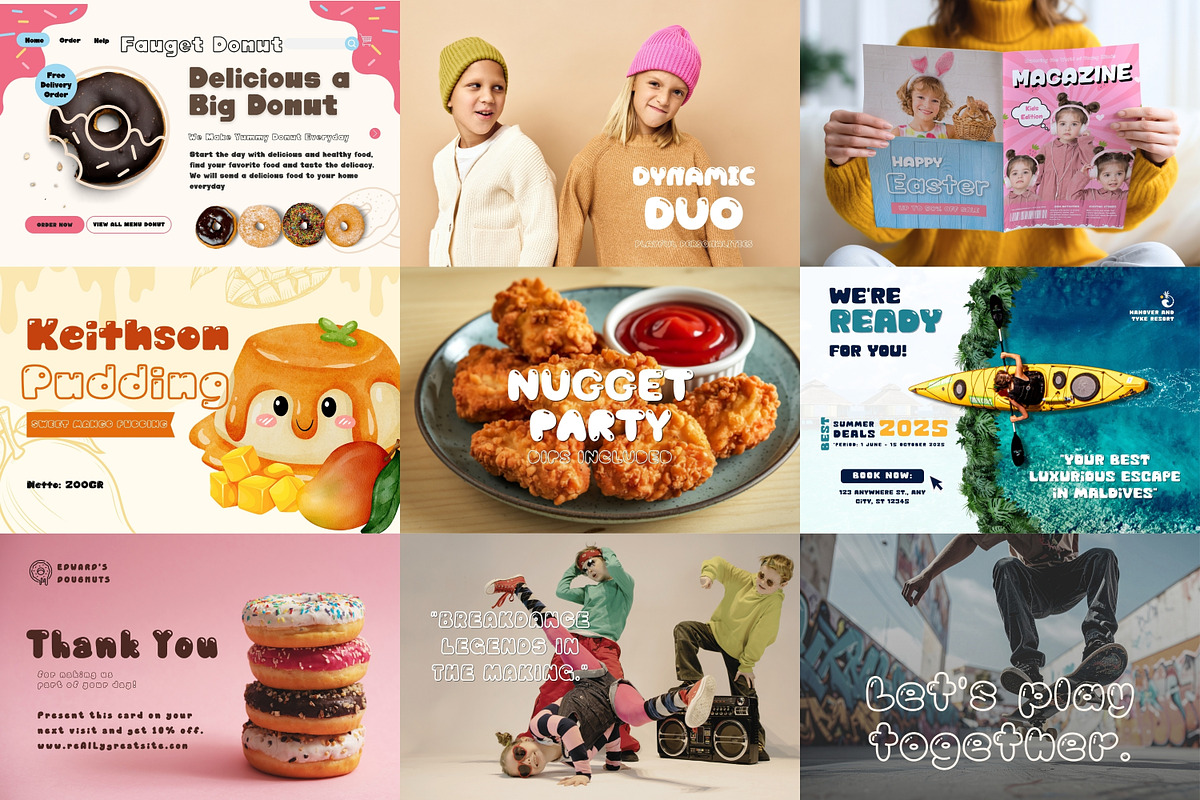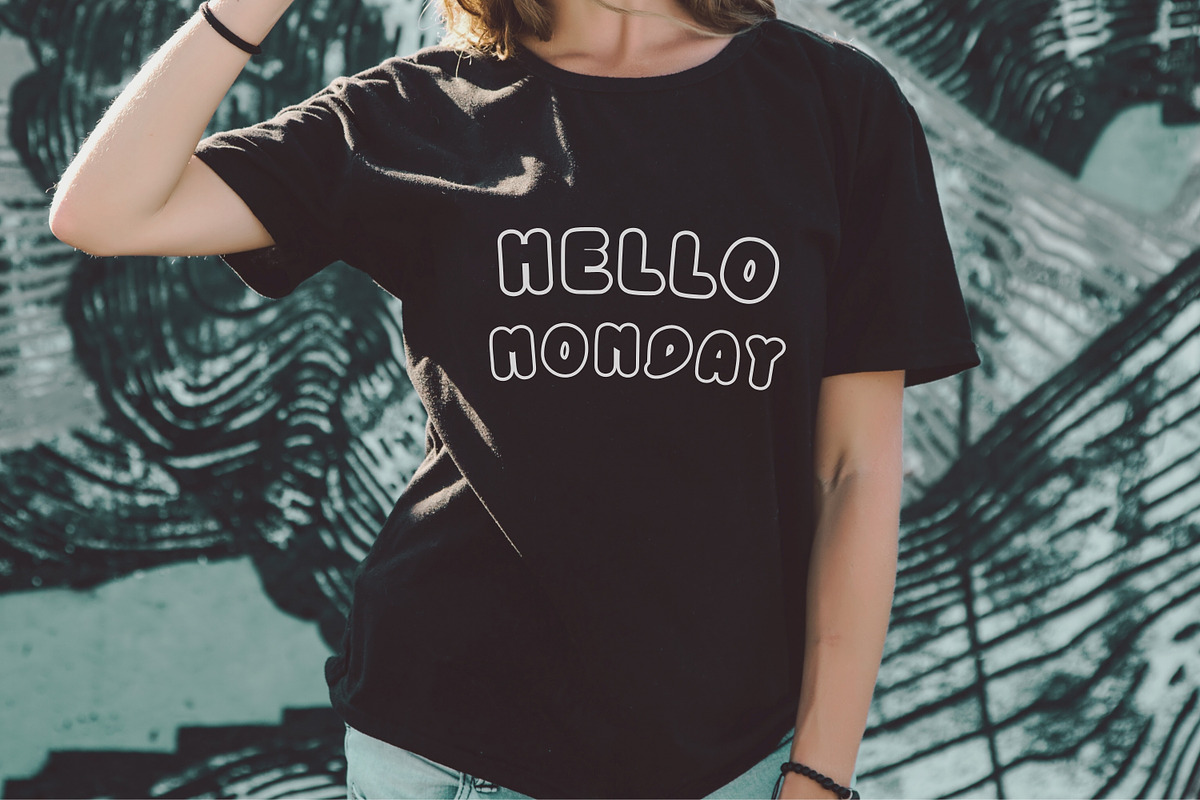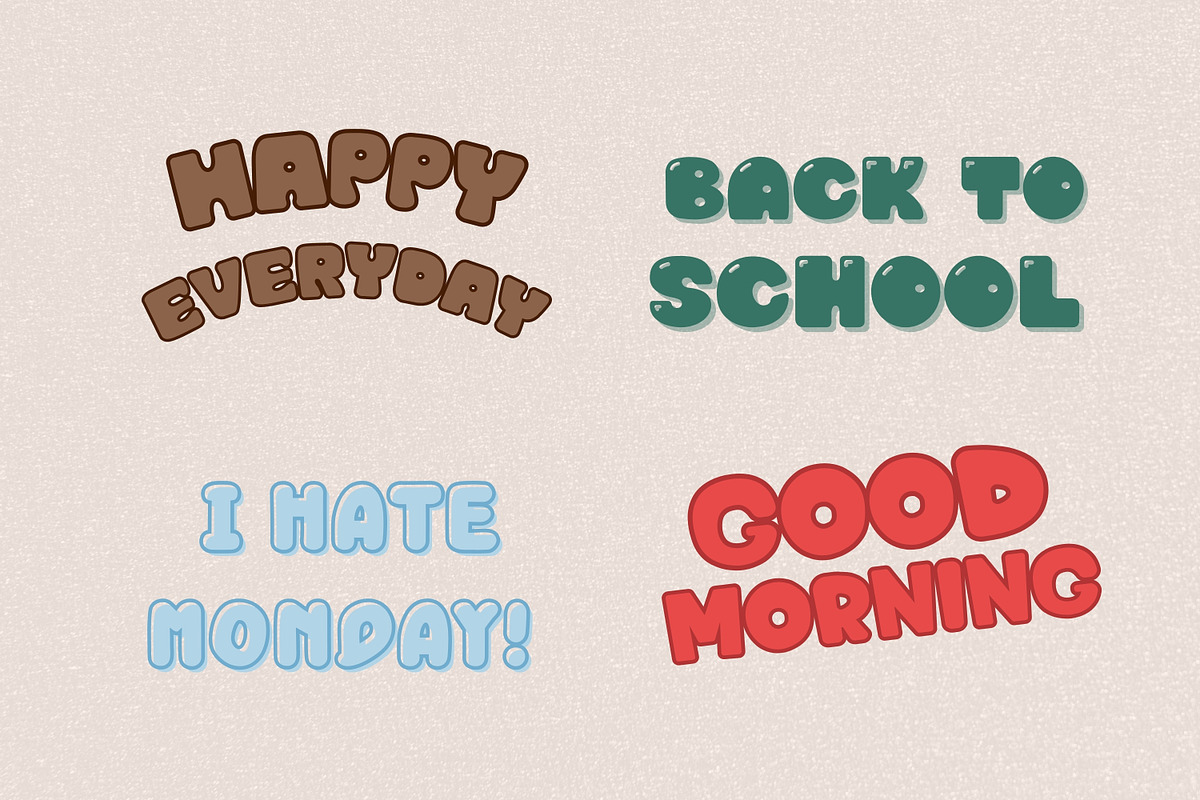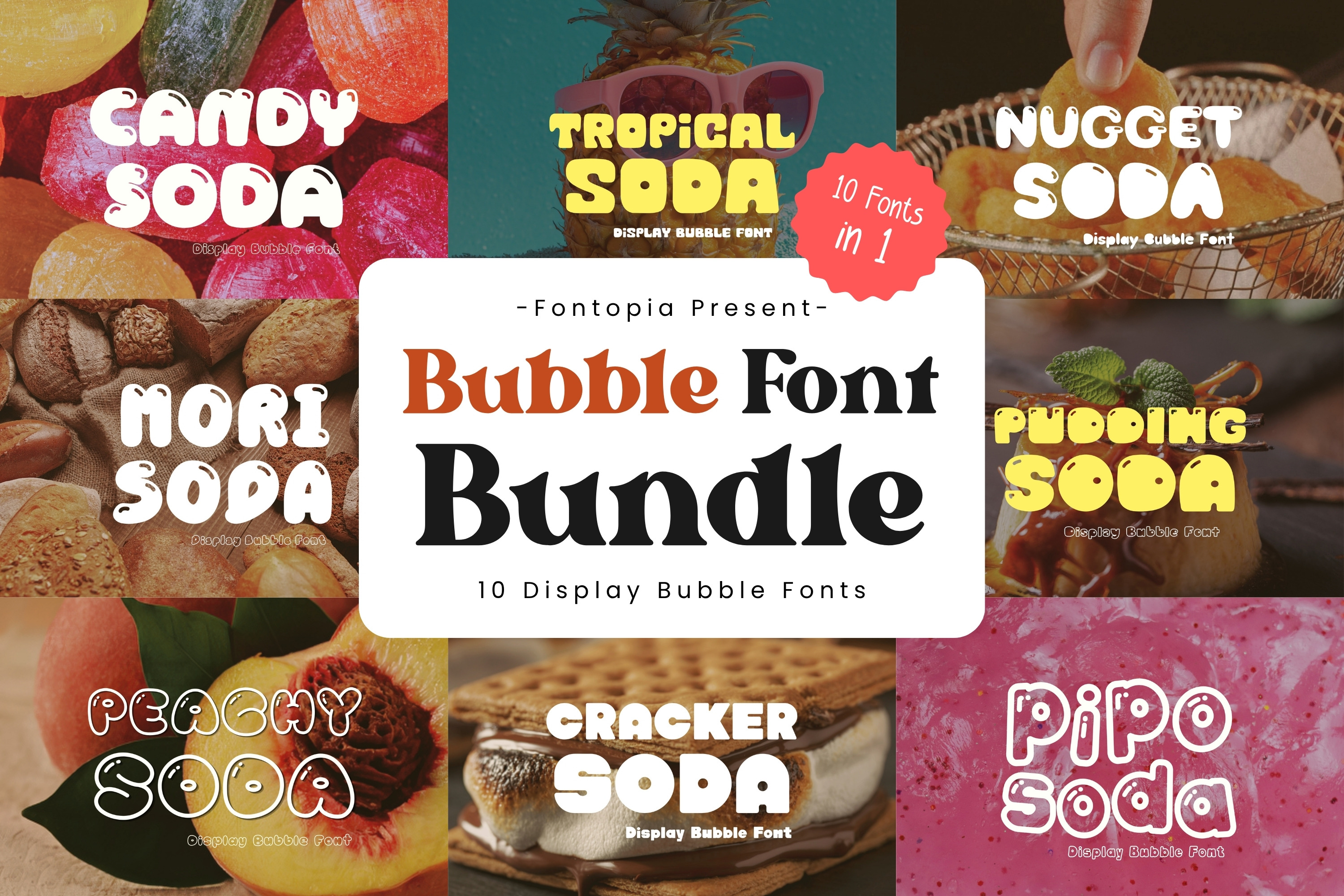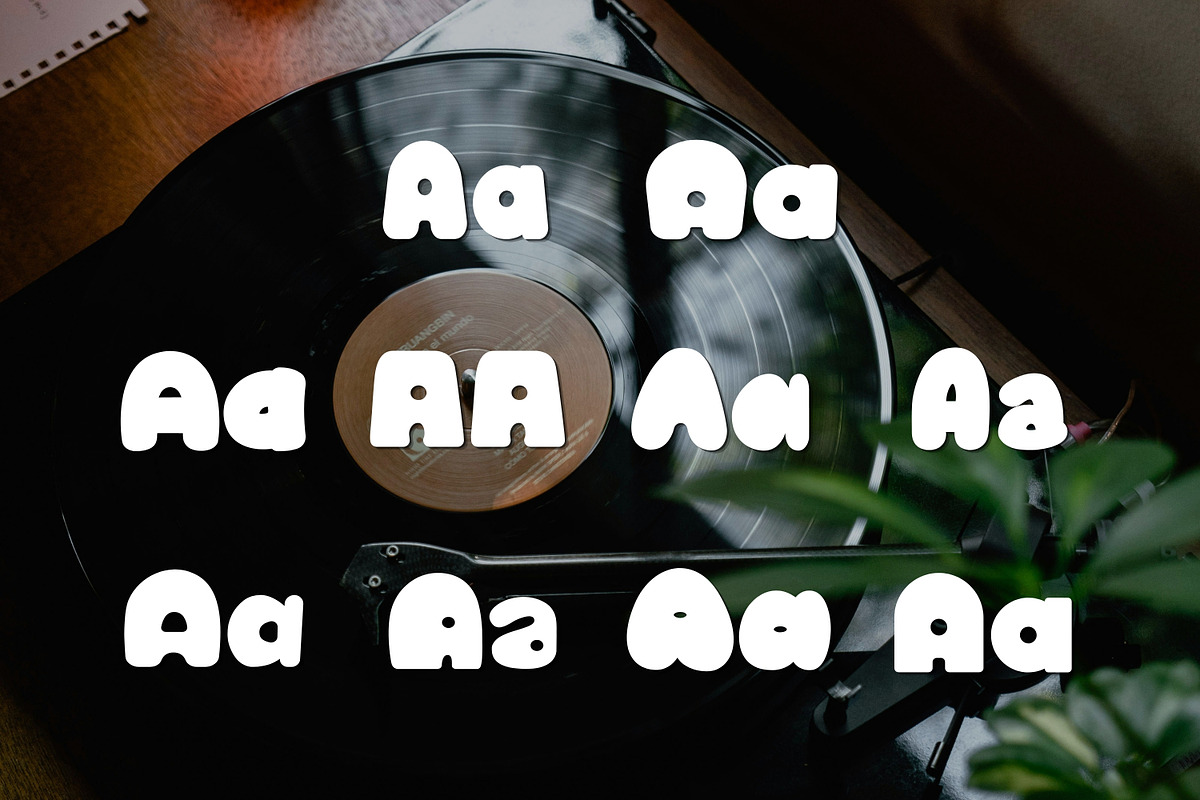
10 Display Bubble Fonts Bundle
✨ Bring ultimate fun, retro, and playful vibes to your designs with the Bubble Font Bundle, Featuring 10 unique display bubble fonts, this curated collection is perfect for creators who want to make their text pop with personality.Whether you’re crafting quirky t-shirt designs, retro stickers, aesthetic social media graphics, or playful branding, this versatile bundle has a bubble style for every mood.